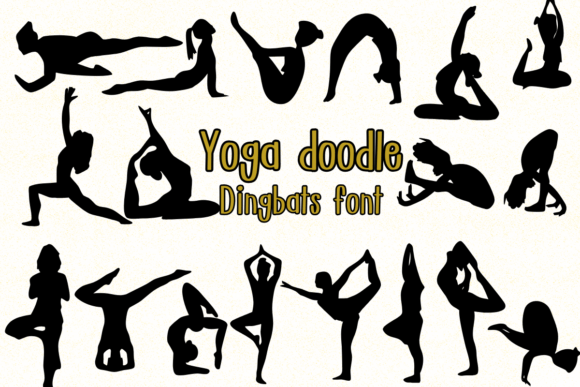
Yoga Doodle Brings a Sketched Charm to Editorial Design
I was sitting at my desk last Tuesday, staring at a blank blog header template for what felt like the hundredth time. My lifestyle site needed a refresh—nothing drastic, just a gentle shift in mood. I wanted the header to feel personal, handcrafted, and warm, but every font I tried landed either too polished or too casual. Then I opened a dingbats font I had bookmarked weeks earlier: Yoga Doodle. In that moment, the whole direction of my redesign clicked.
Yoga Doodle is not a typical text font. It is a dingbats typeface built around a sketched, hand-drawn aesthetic. Each character feels like it was scribbled with a fine pen on a textured notebook page. The strokes are slightly uneven, which gives them a natural rhythm. There is no mechanical perfection here—instead, there is breath, personality, and a gentle sense of movement. For a blogger or publisher trying to build a more intimate connection with readers, that kind of visual warmth is invaluable.
I immediately started testing Yoga Doodle in my blog layout. I used it for the decorative flourishes around the site title and for small accent elements in the sidebar. The sketched style carried a handmade quality that my previous logo design had lacked. It made the whole page feel less like a template and more like a personal project. And that is exactly the feeling I want my audience to have when they land on my site.
Why a Sketched Dingbats Font Works in Editorial Projects
In editorial design, every visual choice either pulls a reader in or pushes them away. A display font like Yoga Doodle does not carry the main reading load—it sets the mood. When I placed it on my recipe ebook cover, the hand-drawn quality made the title feel approachable. It suggested that the recipes inside were made by real hands, not manufactured by a machine. That subtle emotional cue is hard to achieve with a clean sans serif font alone.
What surprised me most was how versatile the sketched style turned out to be. I had assumed a dingbats font would be too niche for regular use, but Yoga Doodle found its way into multiple spots in my publication:
- Blog header decorative elements
- Article title accents and dividers
- Pull quote ornaments in longer editorial pieces
- Chapter opener symbols in a digital magazine layout
- Section heading icons in a printable planner
- Newsletter graphic borders and separators
Each application added a layer of visual texture without overwhelming the content. The key is restraint. When I used Yoga Doodle sparingly—as a small accent beside a bold serif font headline—it elevated the hierarchy. Readers naturally paused at those decorated moments. Their attention was guided, not forced.
Realistic Case: A Lifestyle Blog Redesign
Let me walk you through an actual test. I was redesigning the homepage of a lifestyle blog that publishes weekly essays on slow living, homemade cooking, and simple decor. The brand identity needed to feel grounded and honest. I paired Yoga Doodle as a decorative dingbats element with a clean readable serif font for article body text and a neutral sans serif font for navigation and captions.
The blog header now features a small Yoga Doodle flourish to the left of the site name. It is subtle—barely an inch wide—but it signals handmade care. Below the header, on the featured post, I placed a Yoga Doodle ornament as a divider between the title and the excerpt. The transformation was quiet but noticeable. The page felt more composed, more intentional. Readers who had visited the old design started commenting that the site felt "cozier" and "more like a journal." That is the power of a well-chosen typeface.
For the recipe ebook I was building alongside the blog, I used Yoga Doodle for the chapter title pages. Each chapter opens with a small sketched icon from the dingbats set, paired with a bold display font for the chapter name. The contrast between the clean display font and the hand-drawn doodle creates a pleasant visual tension. It keeps the eye moving and the reading experience engaging.
Where Yoga Doodle Shines in Editorial Layouts
Not every font is suited for every role. Yoga Doodle, being a dingbats font, is not designed for long passages of text. Its strength lies in short, impactful placements where its visual character can breathe. Here is where I found it most effective during my testing:
- Cover text accents: A small doodle near the title or subtitle adds a handcrafted frame.
- Pull quote decorations: Place a sketched element at the start or end of a pull quote to draw the eye.
- Section headings in workbooks: In a coaching workbook PDF, using Yoga Doodle as a bullet or icon for each section makes the page feel less dense.
- Printable planner headers: The hand-drawn style fits naturally into planner layouts where a personal touch matters.
- Newsletter signature: A small Yoga Doodle flourish at the bottom of a newsletter email creates a memorable closing.
I have found that the best editorial designs are the ones that feel inevitable—where every font, every accent, and every space feels chosen for a reason. Yoga Doodle gave my blog header, my recipe ebook, and my newsletter graphics a reason to be noticed. It did not shout. It simply added a sketched whisper that said someone cared about the details. That is the kind of reader experience I want to offer, and it is the kind of design asset I will keep coming back to.